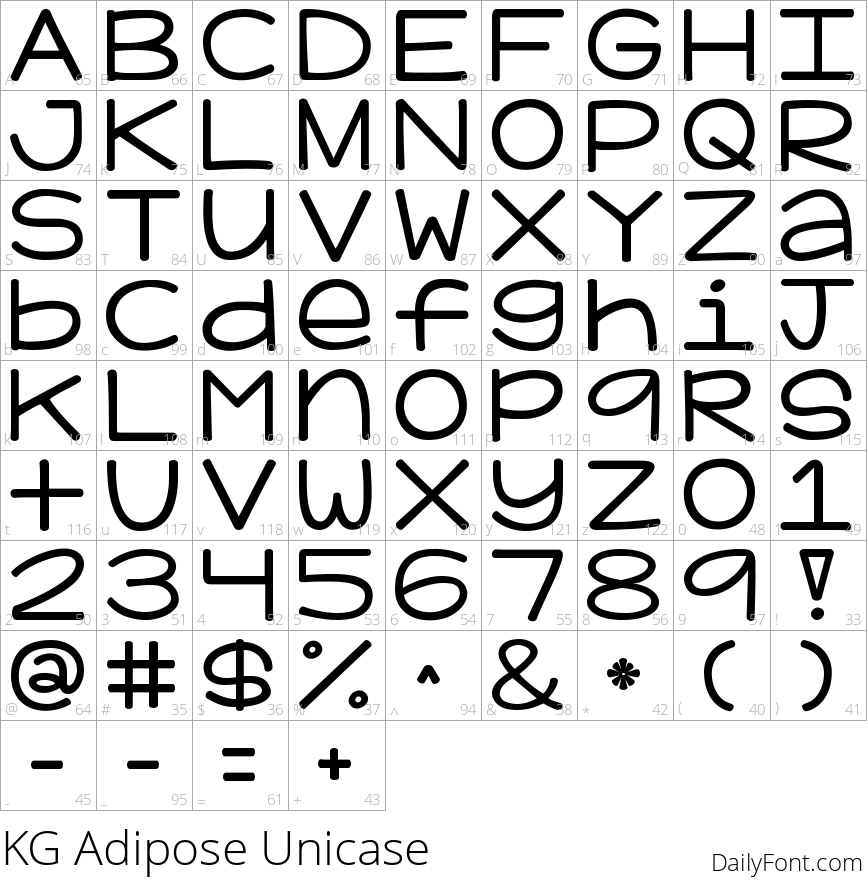
KG Adipose Unicase by Kimberly Geswein
Fun and playful unicase font with rounded shapes and childlike charm, perfect for comics and kid-friendly designs.